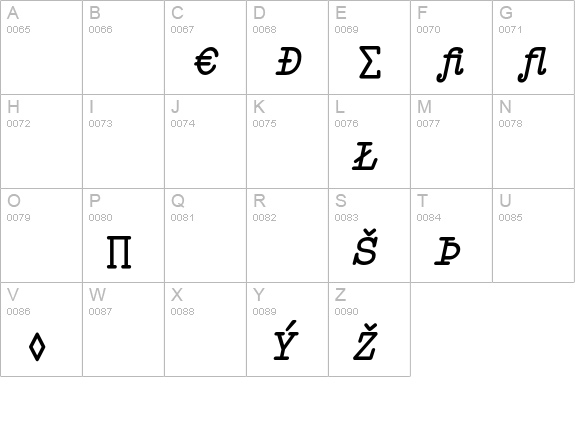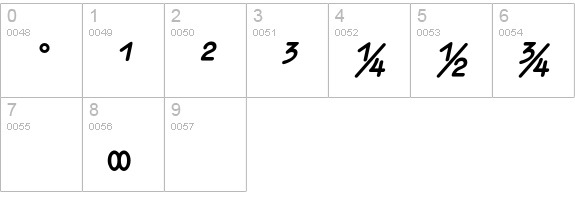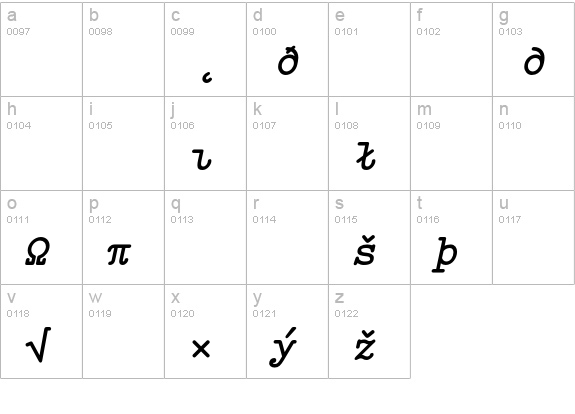
Elementa Expert Bold Italic Font Details
Elementa Expert Bold Italic is a strong, high-contrast, italic variant in the Elementa typeface family \xE2\x80\x94 well suited to headlines, attention-grabbing titles, and strong calls-to-action.
Elementa Expert Bold Italic font is a versatile and modern typeface that exudes sophistication and elegance. Its bold and italic design makes it perfect for creating eye-catching headings, titles, and other design elements. The sleek and stylish letterforms of Elementa Expert Bold Italic font are sure to make your projects stand out. What's even better is that Elementa Expert Bold Italic font is available for FREE download at FontsMarket.com. Now you can add this stunning typeface to your font collection without any cost. Whether you're designing a website, creating a logo, or working on a print project, Elementa Expert Bold Italic font is a fantastic choice that will elevate your designs to the next level. Download it now and unleash your creativity!